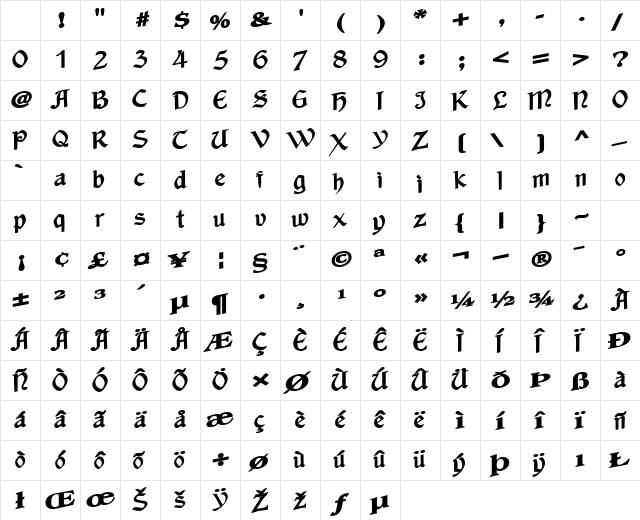
Complete PaloraSSK Bold glyph index. Displaying only characters natively supported by PaloraSSK Bold font.
PaloraSSK is a composed and adaptable typeface that performs quietly and consistently across a wide range of design contexts. Its bold stroke weight gives it real presence on the page.